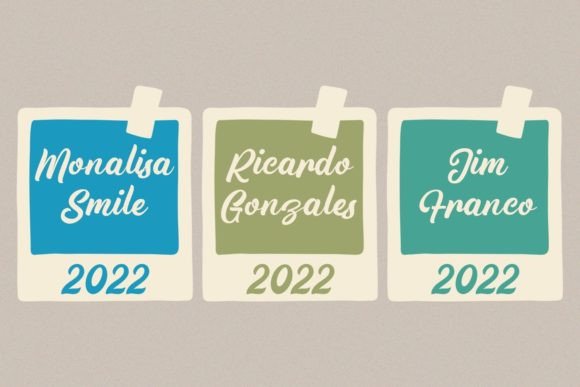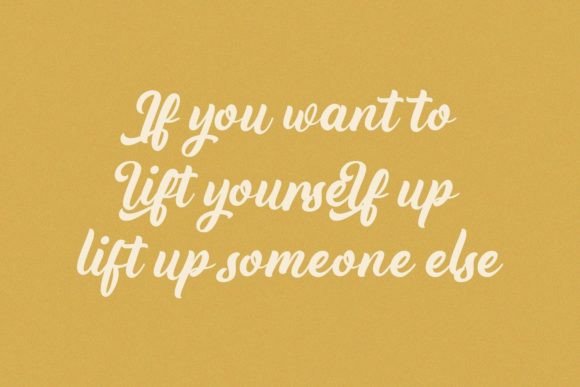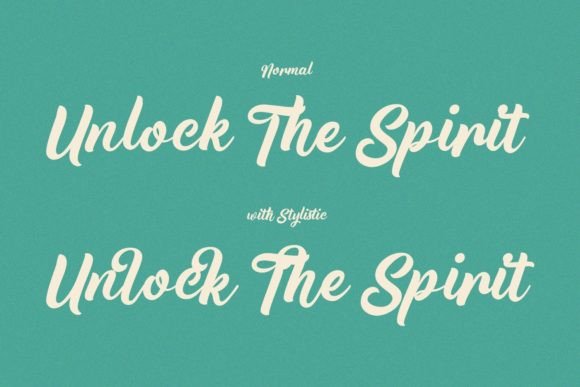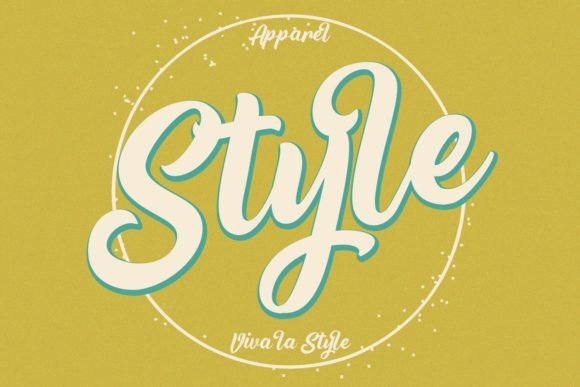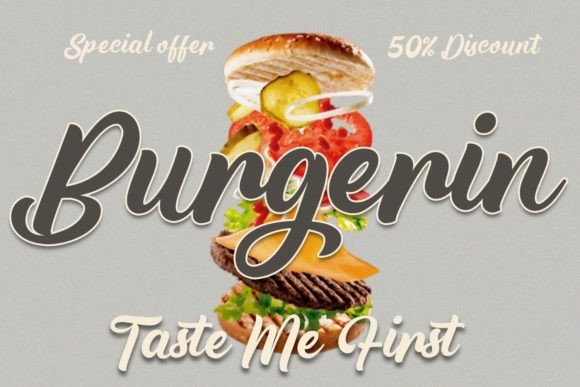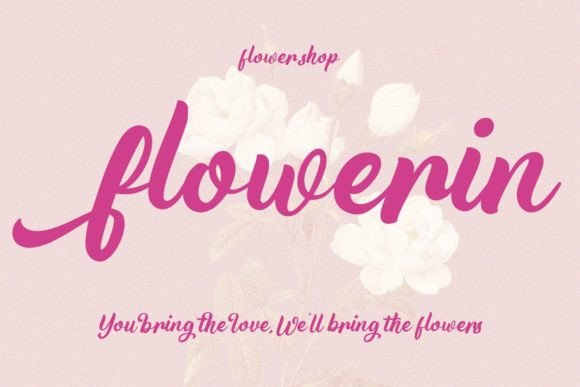
The Designer’s Delight: Unleashing the Power of Anfrisha Font
Ah, the thrill of the design process! You’re working on a project, and everything is coming together – the concept, the colors, the imagery. But then, you hit a roadblock: finding the perfect font. I recall a particularly frustrating experience when I was tasked with creating a logo for a trendy new cafe. The client wanted something modern, yet elegant, and I was determined to deliver. That’s when I stumbled upon Anfrisha Font, a cursive display script font that would change the game.
So, what makes Anfrisha Font so special? Here are a few things that caught my attention:
- ✨ Bold contrast stroke: The font’s bold contrast stroke adds a level of sophistication and elegance to any design.
- ✅ Fun character with ligatures and alternates: Anfrisha Font comes with a range of fun characters, ligatures, and alternates that allow for creative experimentation.
- ✅ Versatility: This font is perfect for logo design, social media, movie titles, book titles, and even long text letters.
Of course, no font is perfect. Here are a few quirks to keep in mind:
- 🤔 Limited use in body text: While Anfrisha Font is amazing for headlines and titles, it may not be the best choice for body text due to its cursive nature.
- ⚠️ Requires careful kerning: As with any script font, kerning can be a bit tricky. Make sure to adjust the spacing to ensure optimal readability.
The Story Behind Anfrisha Font
Anfrisha Font was designed with the intention of creating a beautiful, versatile script font that could be used for a wide range of design applications. The designer aimed to craft a font that was both elegant and fun, with a unique character that would stand out in any design. While the designer’s background and inspiration are shrouded in mystery, it’s clear that Anfrisha Font was created with the designer in mind.
| What is Anfrisha Font best suited for? | Anfrisha Font is perfect for logo design, social media, movie titles, book titles, and short text letters. |
| Can I use Anfrisha Font for body text? | While Anfrisha Font can be used for body text, it’s not the most ideal choice due to its cursive nature. It’s best suited for headlines and titles. |
| Is Anfrisha Font available in different styles? | Anfrisha Font comes with a range of fun characters, ligatures, and alternates that allow for creative experimentation. However, it’s not available in multiple styles like bold, italic, etc. |